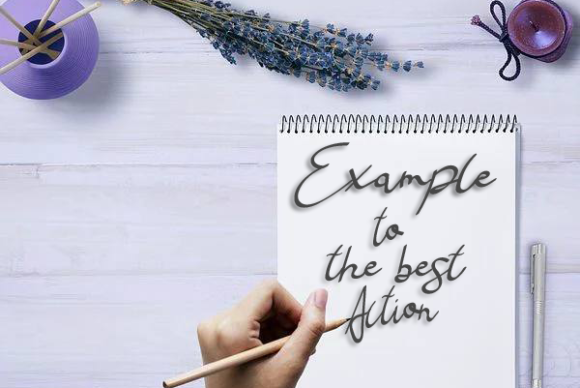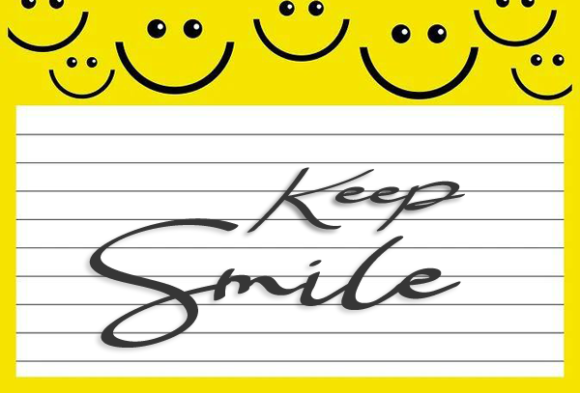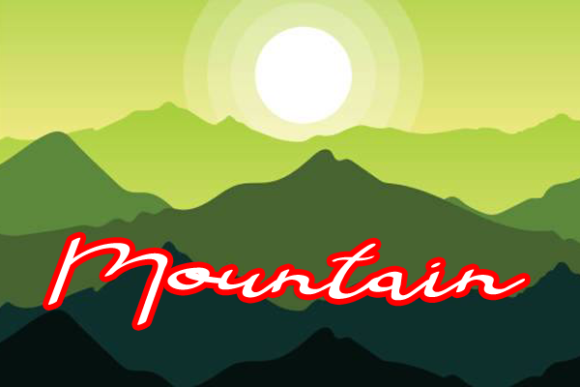
Emelda Font
About Emelda Font
Emelda is an elegant script font with a contemporary atmosphere and impeccable form, inspired by timeless classic calligraphy. Fall in love with its incredibly versatile style and use it to create spectacular designs!